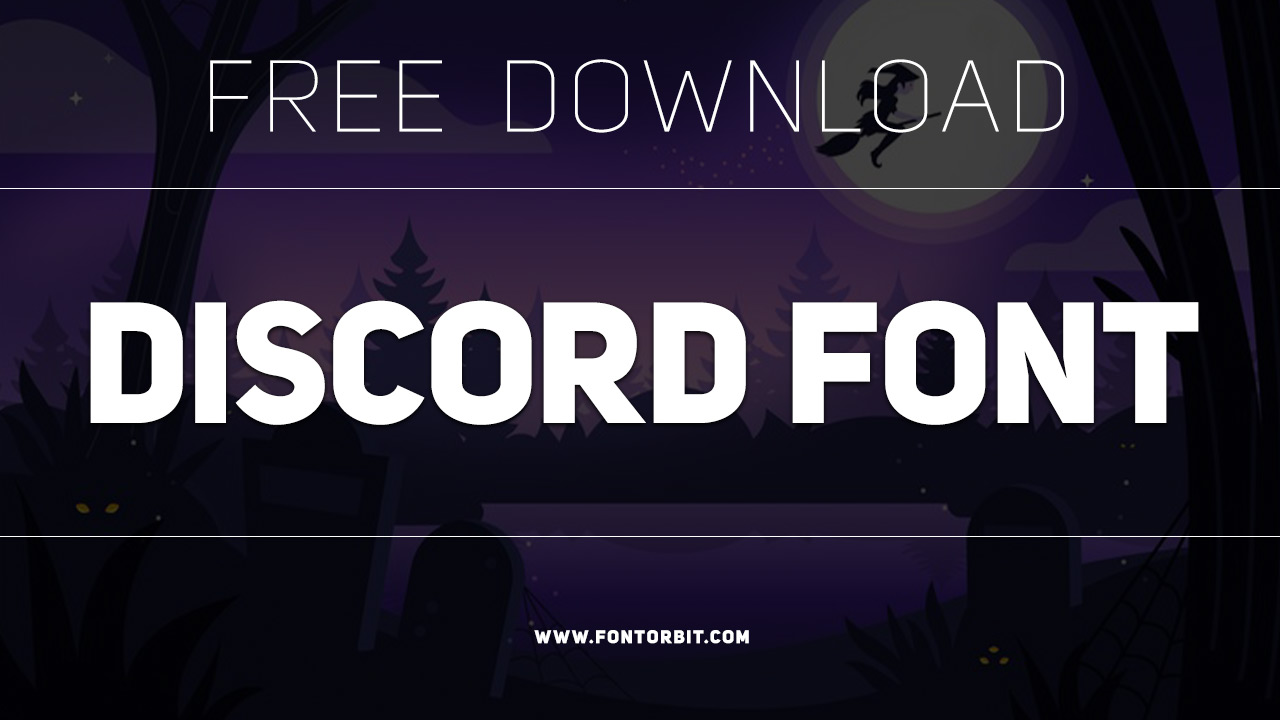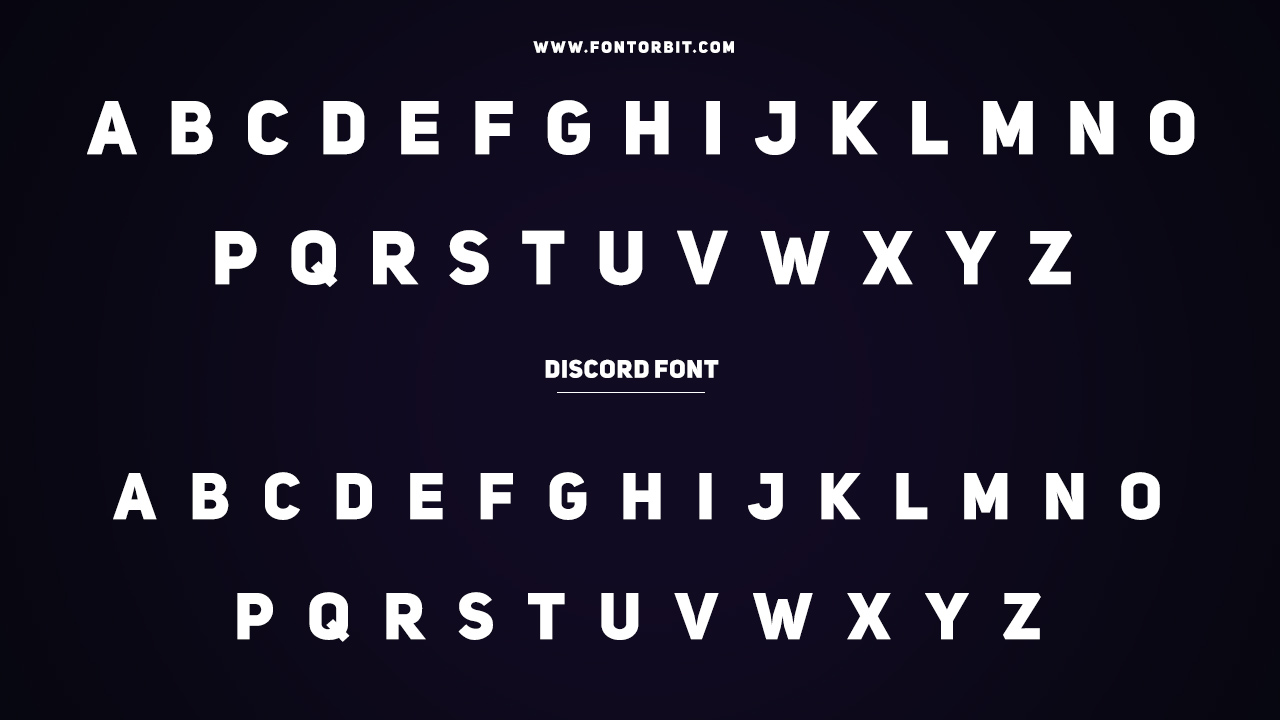
Gg sans is the official typeface used across the Discord app. Designed by Discord’s in-house team, fonts play a crucial role in online branding, helping streamers and content creators stand out.
Whether you want a unique font for your Discord server, a custom font for Twitch overlays, or bold text formatting in YouTube thumbnails, the right font style can enhance your digital presence.
If you’re a content creator, using different font styles can make your channel visually appealing. Discord fonts allow you to add personality to your Discord chat, Twitch panels, and YouTube thumbnails. These unique styles create a professional aesthetic, making your brand memorable for viewers.
With a discord font generator, you can transform plain text into cool font styles like cursive, bold italics, and glitch effects. Whether you’re branding your Discord profile or making your Twitch bio stand out, using discord text formatting will elevate your content.
Popular Discord Font Styles For Streamers
- Bold Text & Italics – Great for highlighting key information in Discord messages or Twitch banners.
- Cursive Font Generator – Adds an elegant touch to your YouTube thumbnails.
- Glitch Text Generator – A futuristic style perfect for gaming channels.
- Strikethrough Text Generator – Useful for emphasizing crossed-out words in Discord chat.
- Small Text Generator – Ideal for compact designs in Twitch overlays.
- Unicode Symbols & Fancy Text – Makes usernames and stream titles stand out.
How To Use A Discord Font Generator
A discord fonts generator converts standard text into fancy fonts using Unicode characters. Follow these simple steps:
Enhancing Your Discord Server & Streaming Setup
Your Discord server is an extension of your brand, and using unique fonts can set it apart. Whether you’re formatting bold text, using plain text, or adding symbols, the right font enhances readability and engagement. Combine discord text formatting with emojis and unicode symbols for a visually engaging experience.
Choosing The Right Font Size
When using a custom font in Discord chat, Twitch, or YouTube, font size matters. Avoid fonts that are too small to read on mobile screens. A discord font changer allows you to adjust styles for different platforms.
Whether you’re designing a Discord profile, Twitch banner, or YouTube logo, the right font style enhances your online identity. Use a discord fonts generator to experiment with custom fonts, fancy text, and unicode symbols to make your brand stand out!
While you can’t change the default gg sans in Discord, you can use a discord font generator to create different font styles.
6.Do Different Discord Fonts Affect Readability?
Some weird text generators may produce difficult-to-read styles. Use discord text formatting wisely to maintain readability.